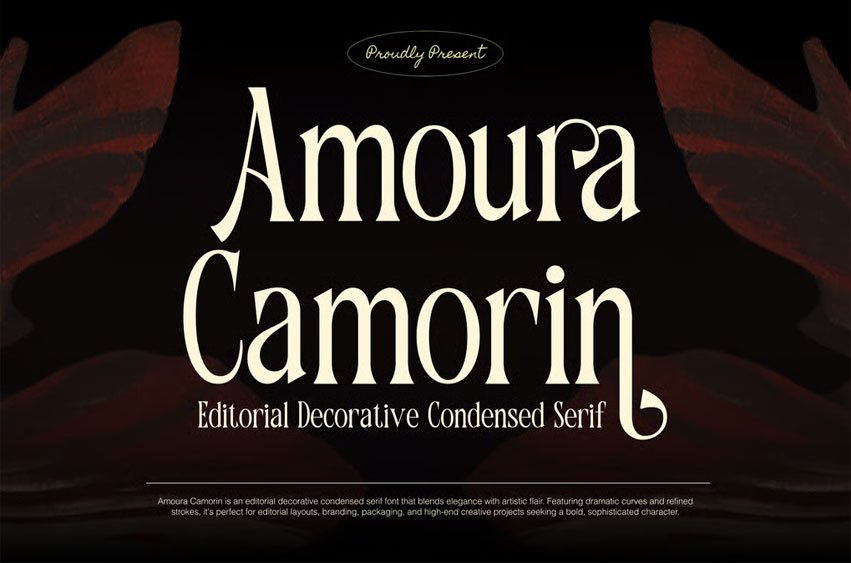
Amoura Camorin Font is an editorial decorative condensed serif font that blends elegance with artistic flair, making it ideal for projects that demand a bold yet refined touch. Its dramatic curves, narrow proportions, and sophisticated strokes create a timeless style suitable for luxury branding, fashion editorials, and creative publications. This modern serif also works beautifully for premium packaging, logos, wedding invitations, and high-end design projects, while maintaining a strong visual identity. Perfect for designers seeking a classy, luxurious, and editorial-ready typeface that elevates any composition.
Relevance and Use Cases is perfect for branding, editorial layouts, packaging design, luxury brand identity, fashion magazines, wedding invitations, product labels, upscale restaurant menus, creative portfolios, boutique logos, advertising campaigns, high-end stationery, beauty and cosmetic packaging, book covers, event posters, jewelry branding, lifestyle blogs, art galleries, premium signage, formal announcements.